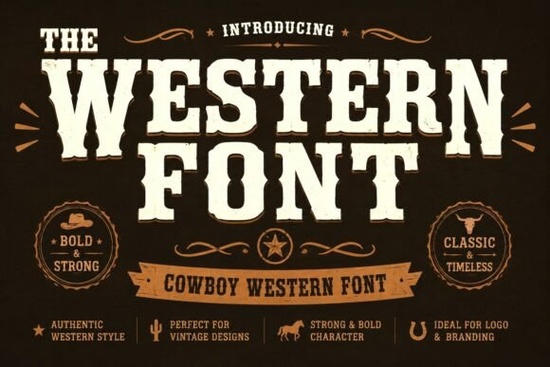
If you've ever tried to design a logo, poster, or t-shirt with an authentic cowboy feel, you know how hard it can be to find the right typeface. The Western Font solves that problem with bold, vintage letterforms that look like they came straight off an old saloon sign. It's built for anyone who wants that rugged, frontier-era look without spending hours tweaking a generic font to get there.
What makes this font look so "western"?
The design pulls from classic Wild West signage think slab-serif shapes, heavy strokes, and small decorative details that give each letter a hand-carved quality. It's not overly ornate, but it has enough texture and character to feel authentic. The letterforms are thick and blocky, which means they hold up well at large sizes on banners, storefronts, and apparel prints.
Unlike many display fonts that sacrifice readability for style, this one stays clean enough to read at a glance. That balance is important for branding work, especially when you're designing for print-on-demand products or storefront signage where people only have a second or two to absorb your message.
Where does a western typeface actually work well?
This style of font isn't just for cowboy-themed party invitations (though it's great for those too). Here are some real-world uses where it fits naturally:
- BBQ restaurants and smokehouse branding menus, signage, packaging
- Ranch and farm logos business cards, letterheads, merchandise
- Rodeo and county fair posters event flyers, social media graphics
- Country music artwork album covers, gig posters, fan merch
- Leather goods and craft businesses product labels, hang tags, stamping
- Print-on-demand t-shirts especially vintage and distressed-style designs
- Wedding invitations with a rustic theme barn weddings, outdoor ceremonies
If you run a small business or sell on platforms like Etsy, a font like this can become a core part of your visual identity. It works especially well when paired with earthy color palettes, worn textures, and simple layout designs.
How does it compare to other bold display fonts?
There are plenty of bold display fonts out there, but not all of them nail the western aesthetic. For example, Loveberry Bold has a thick, punchy style that leans more toward playful and retro, while Summer Komika brings a fun, casual energy that's better suited for lighthearted projects. If you're working on something more whimsical, Enjoy Being offers a flowing, expressive feel. And for quirky branding, Quirknest has a unique personality all its own.
Each of these fonts fills a different design need. The Western Font stands out specifically because it's purpose-built for that vintage American frontier look. It doesn't try to be everything it does one thing and does it well.
Is it a good fit for print-on-demand sellers?
Absolutely. If you sell western-themed t-shirts, hoodies, mugs, or stickers, having a go-to display font saves you time on every new design. Since The Western Font is bold and reads clearly at various sizes, it works on both large posters and smaller product labels. You can type out a phrase, drop it into your mockup, and have a finished design concept in minutes.
For best results, try pairing it with simple graphics a horseshoe, cactus silhouette, or longhorn skull outline and a muted color scheme. Avoid layering too many effects on the text itself. The font's built-in character does most of the heavy lifting.
Tips for getting the most out of this typeface
- Use it for headlines and titles only. It's a display font, not meant for body copy or long paragraphs.
- Give it room to breathe. Generous spacing around the text helps the details stand out.
- Stick to uppercase or a mix. The uppercase letters have the strongest western presence.
- Test it at the size you'll actually use. What looks great on screen might need slight adjustments for print.
- Pair it with a simple sans-serif for any supporting text so the display font stays the star.
Quick checklist before you buy
Ask yourself these questions:
- Do I need a font for western logos, cowboy branding, or rustic designs?
- Will I use it for print-on-demand, signage, or packaging?
- Do I want something bold and readable that doesn't need extra styling?
- Am I looking for a vintage slab-serif with authentic frontier character?